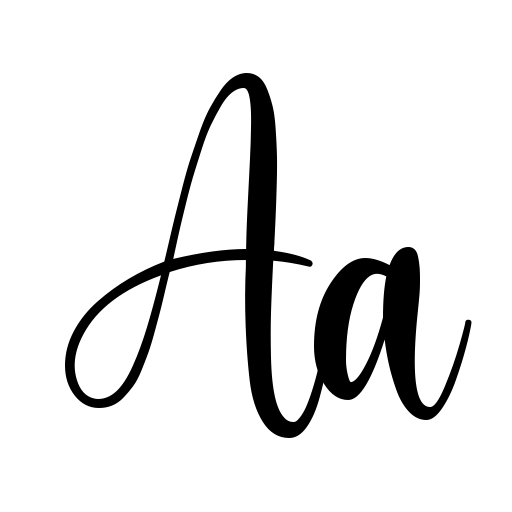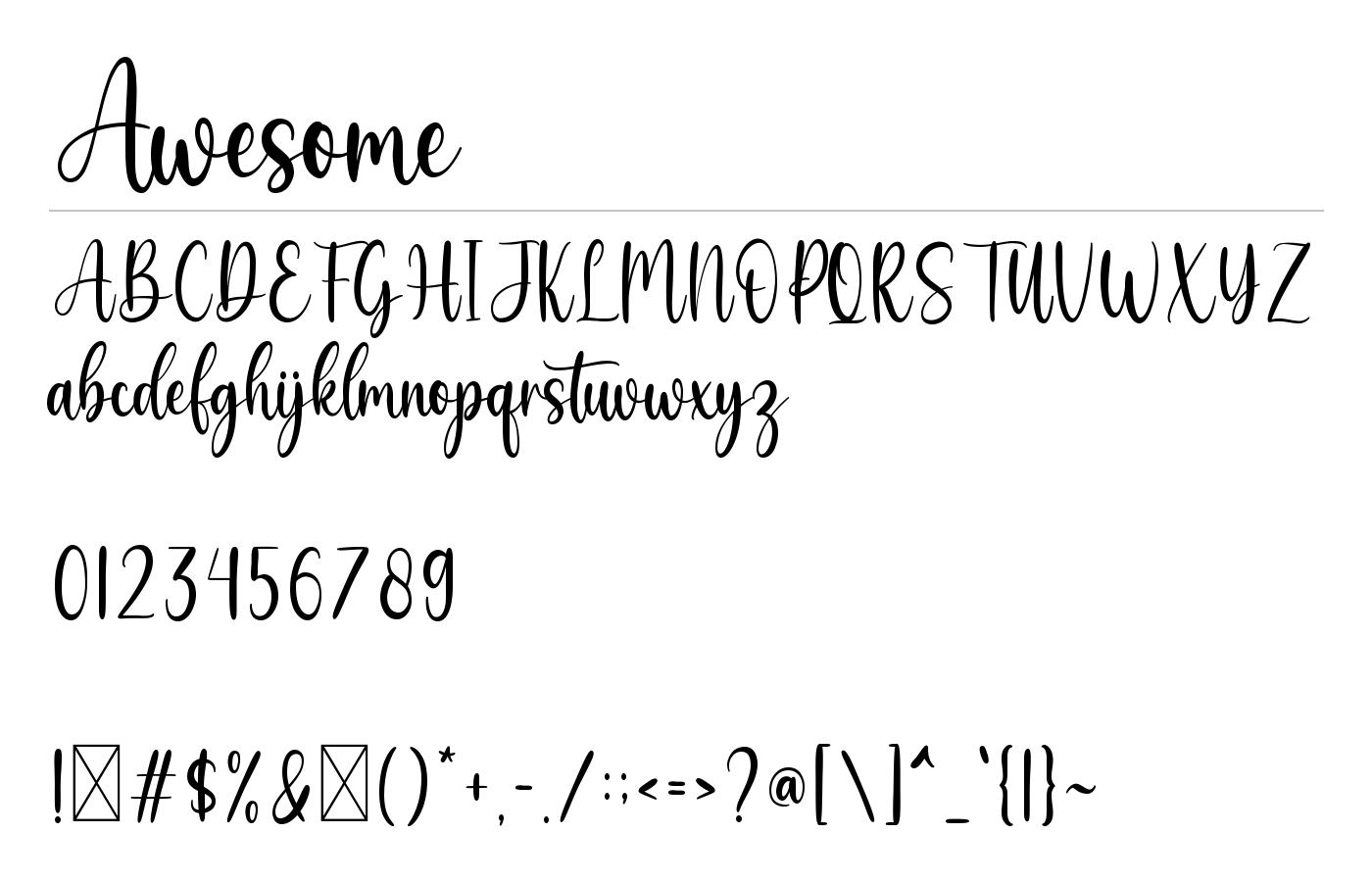
Awesome Font is a playful, handwritten script with a light, elegant feel, characterized by tall, narrow letterforms and smooth, flowing strokes. Its delicate style and casual charm make it perfect for creative branding, invitations, and social media where a personal, friendly touch is desired.
Awesome Font
About Awesome Font